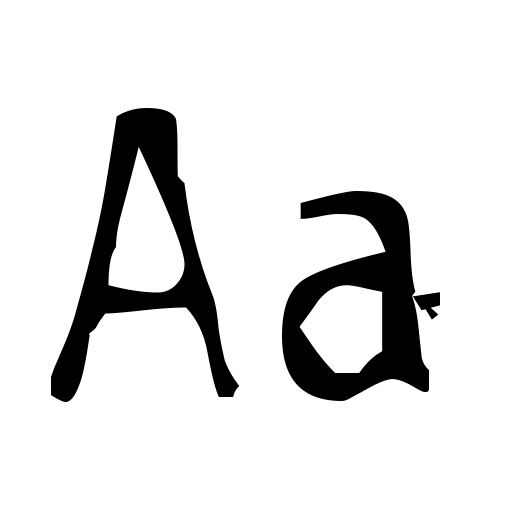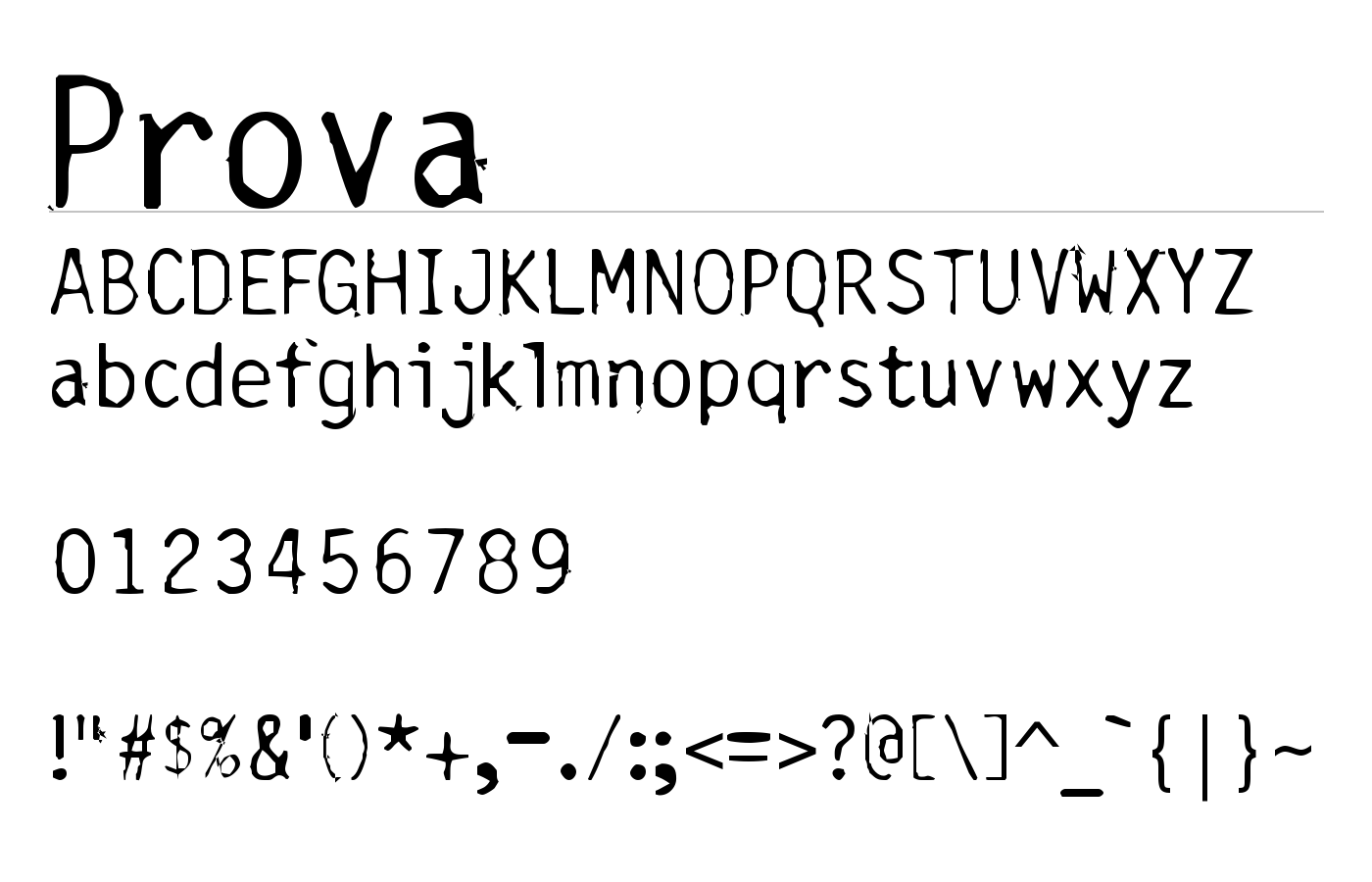
Burned Gothic is a distinctive sans serif font that combines a narrow, tall structure with a rough, distressed texture, giving it a raw and edgy feel. Its irregular edges and uneven stroke details evoke a sense of decay or burning, making it ideal for designs that require a gritty, vintage, or rebellious atmosphere. This font works especially well for posters, album covers, and branding projects that aim to convey boldness and a rugged character.
Burned Gothic Font